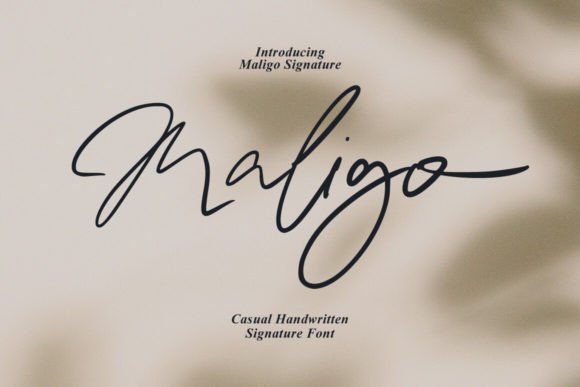
In a world where digital impressions reign supreme, your website title holds the power to captivate or repel visitors in an instant. Unleash the allure of Maligo Font, the ultimate font family that transforms your titles into breathtaking masterpieces. Crafted with meticulous attention to detail by the renowned Tebaltipis.std, Maligo Signature embodies the essence of elegance and sophistication.
Step into a realm of exquisite handmade signatures, where each letter dances gracefully upon the baseline. Adorn your invitations, greeting cards, branding materials, business cards, quotes, and posters with the sheer brilliance of Maligo Signature. Its versatility knows no bounds, extending its charm to logos, packaging, and social media graphics.
With over 250 glyphs at your disposal, Maligo Signature empowers you to express your creativity like never before. Explore a world of alternative characters, meticulously organized into OpenType features such as Swash, Stylistic Sets, Stylistic Alternates, and Ligature. Unleash endless possibilities with Adobe Illustrator, Adobe InDesign, Adobe Photoshop Corel Draw X version, and Microsoft Word.
But that's not all. Maligo Signature is a font that embraces inclusivity. It is bestowed with PUA unicode, the secret key that grants you effortless access to all alternate characters. Whether you're a seasoned craftsman or a budding designer, Maligo Signature empowers you to weave your creative magic with ease.
In a world clamoring for attention, let Maligo Font elevate your website title to dizzying heights. Ascend beyond the mundane and embrace the extraordinary. With Maligo Signature, your digital presence will radiate an aura of sophistication and charm that will leave an indelible mark on your audience.